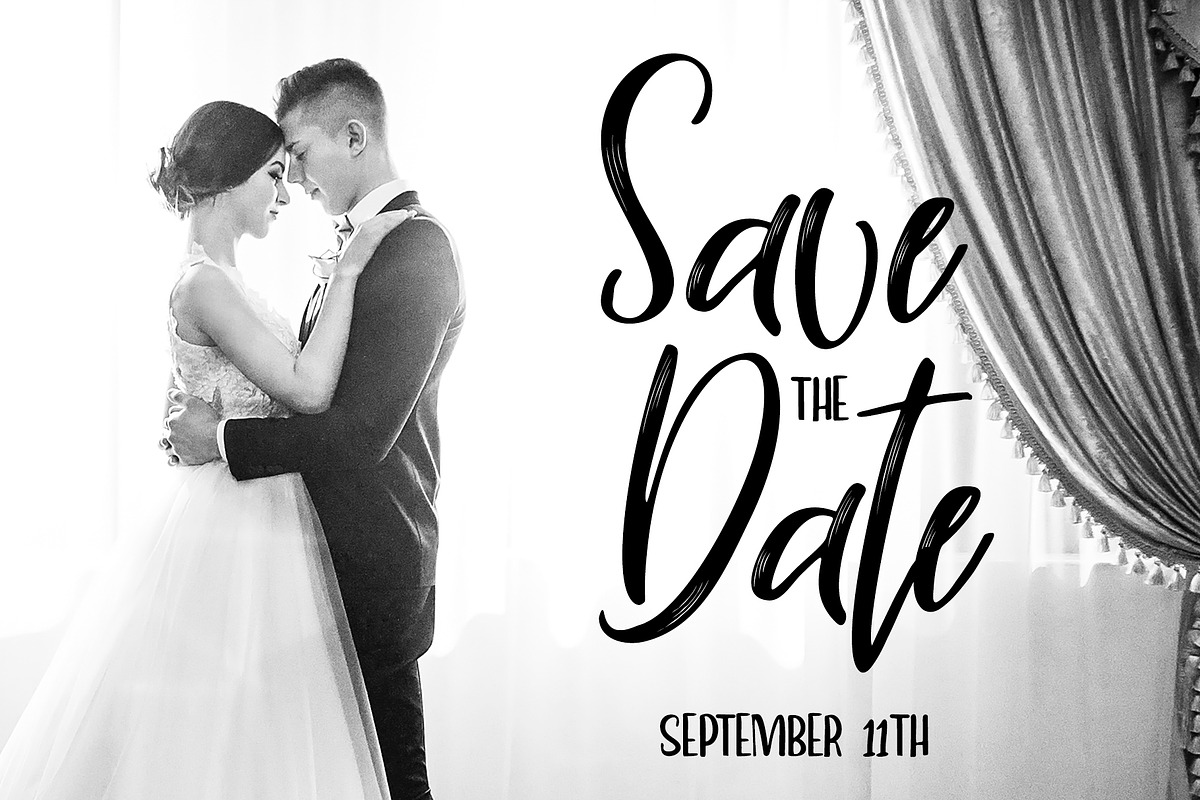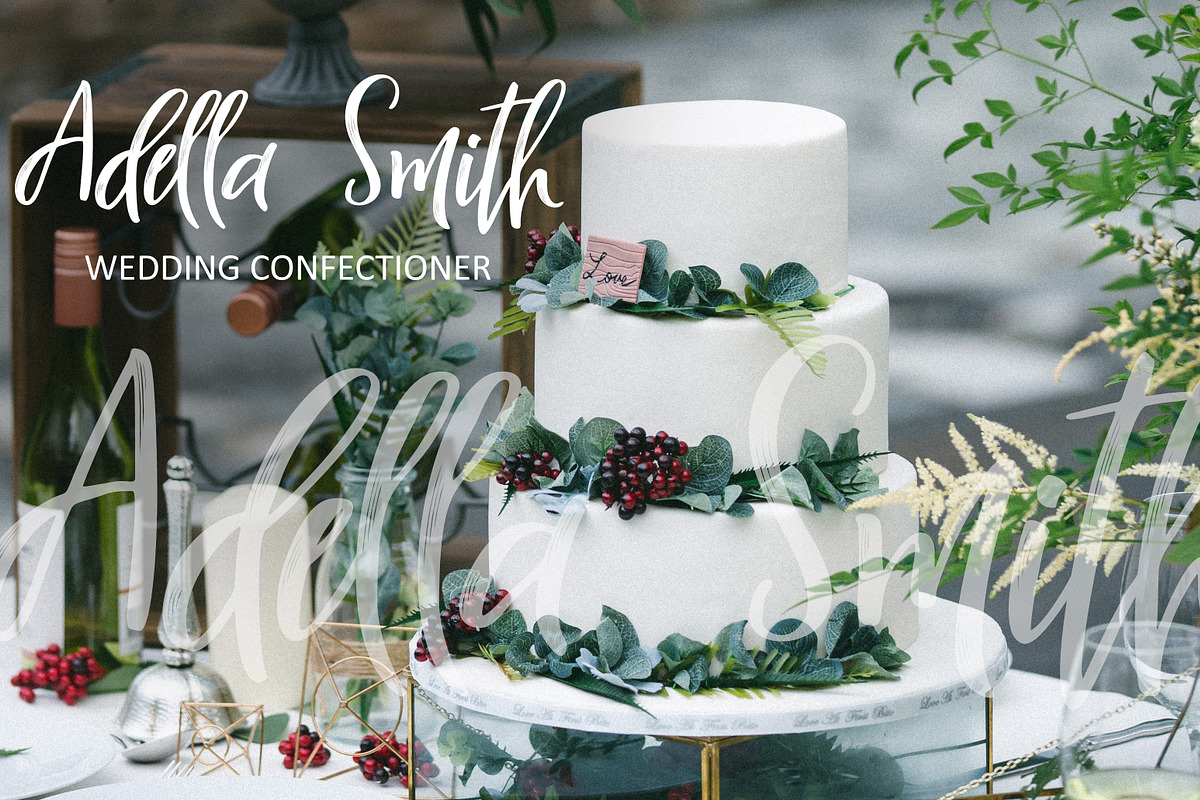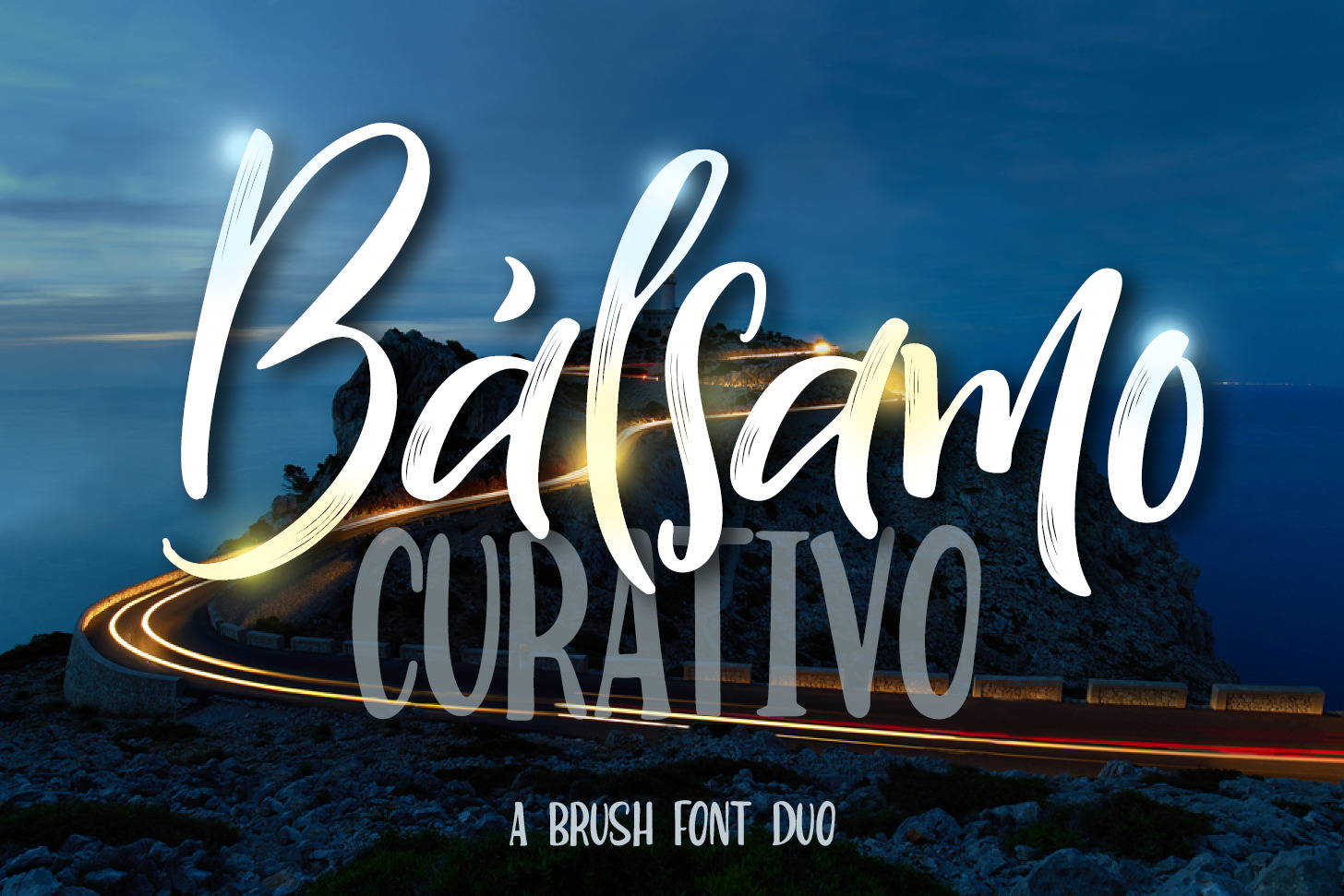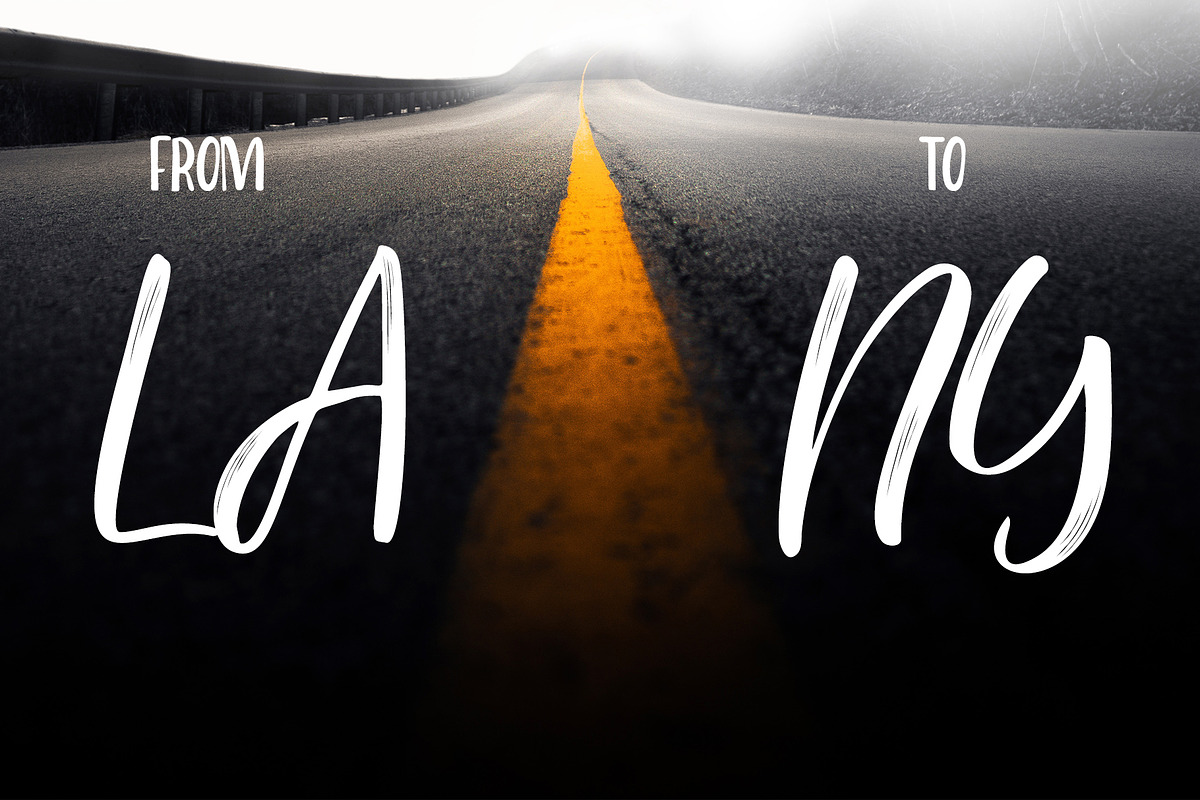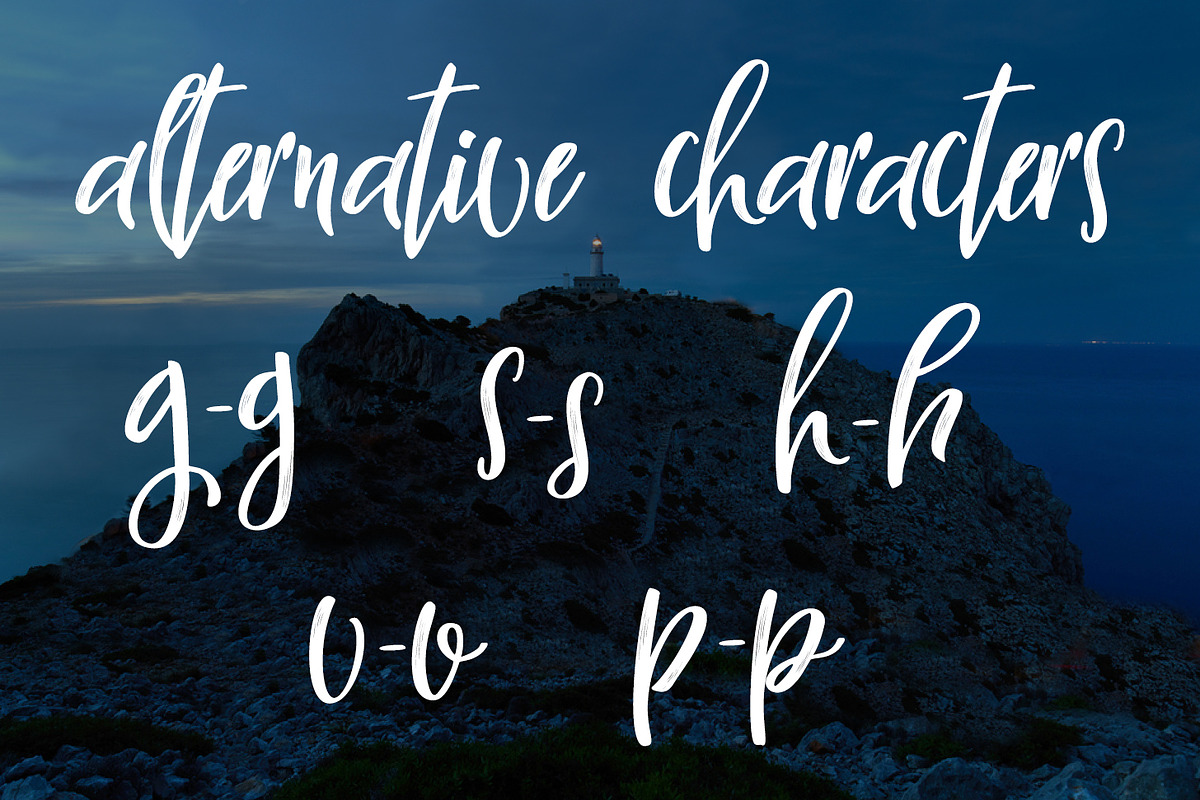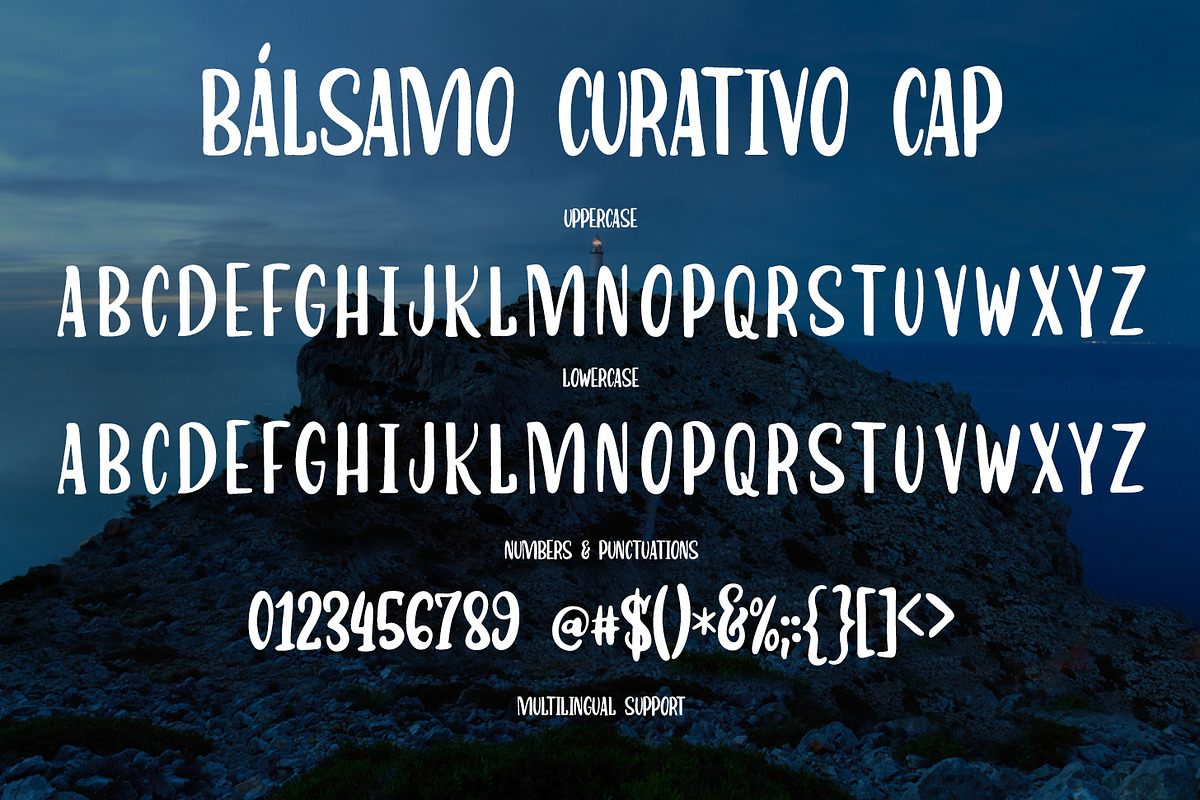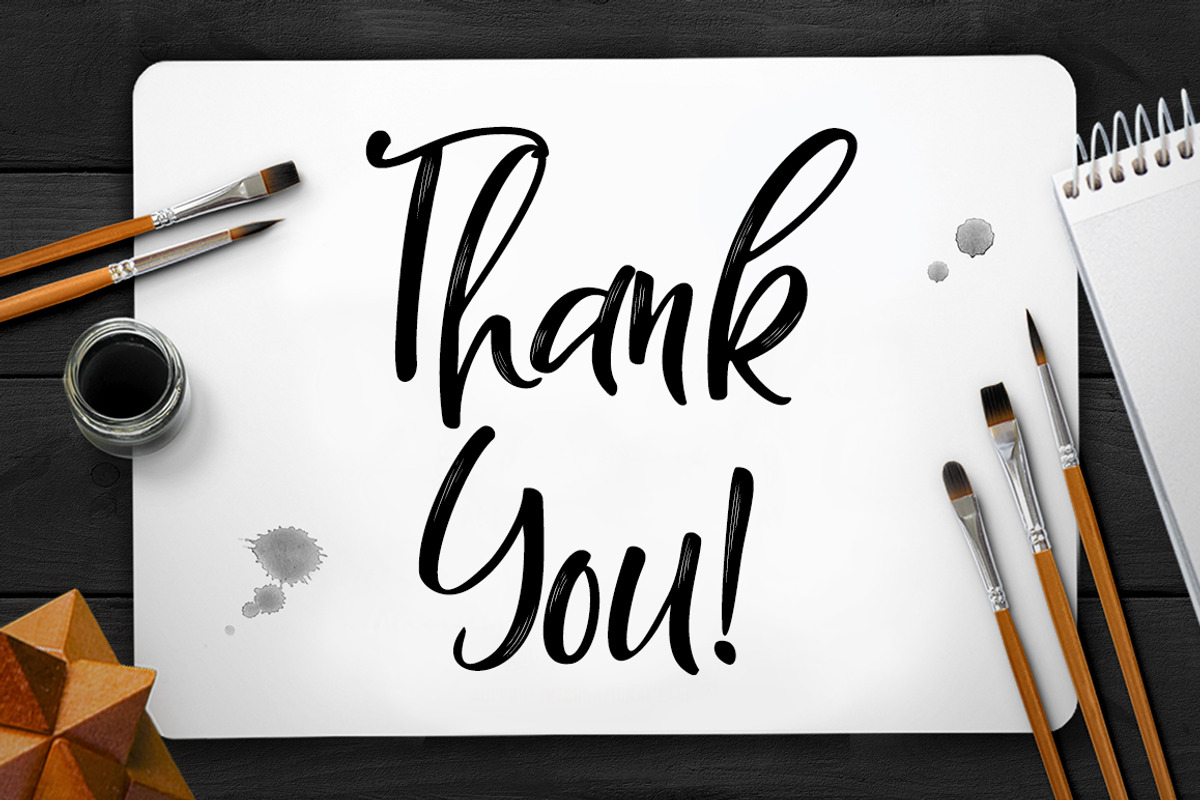
Bálsamo Curativo - Font Dou
Say hello to Bálsamo Curativo, script font dou!
Bálsamo Curativo is a fancy handlettering typeface with a clear style, good mood, and dramatic movement. It's allowing you to create beautiful hand-made typography in an instant. The Bálsamo Curativo comes with set of lowercase alternates - pick the letters that looks best in your type design - and switch between different letters in the same word to create a more authentic look.
Foreign Languages Support. Western European, Central, and South East European too.
- Bálsamo Curativo - main font
- Bálsamo Curativo - Clean
- Bálsamo Curativo CAP